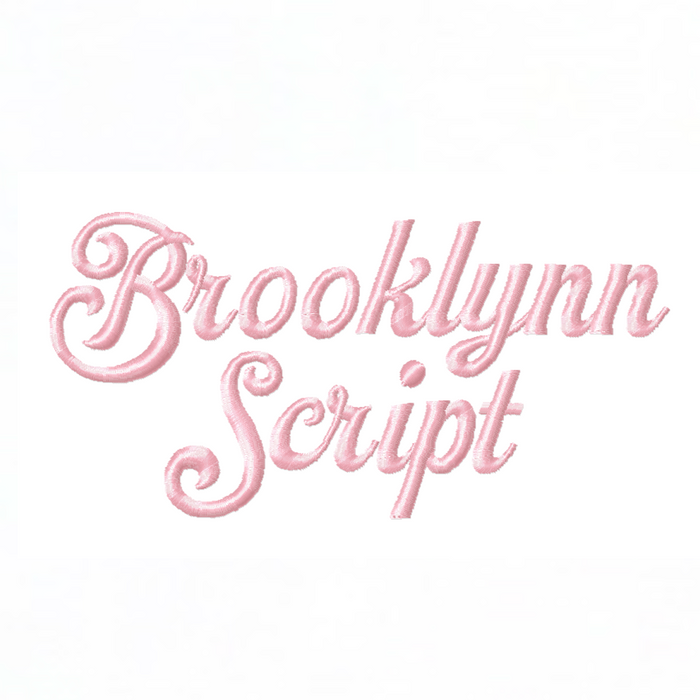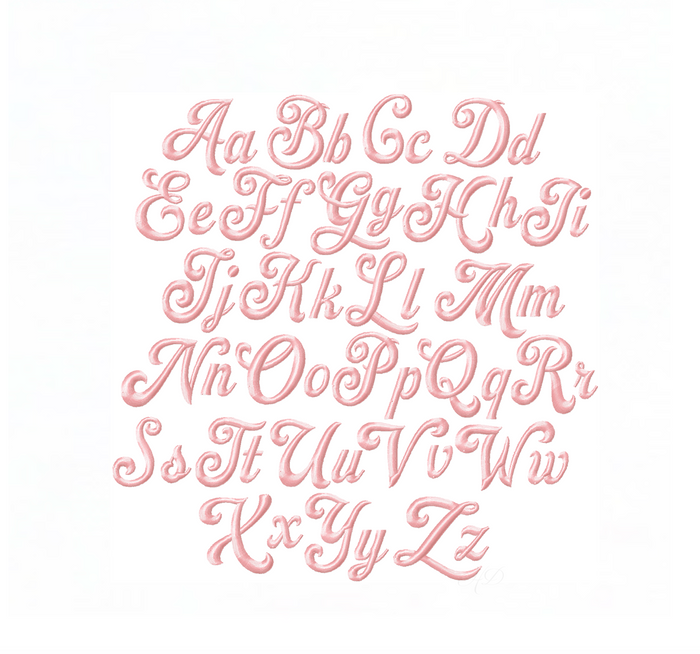
Brooklynn Script Satin Embroidery Font Package
Transform your embroidery projects with the Brooklynn Script Satin Embroidery Font Package. This versatile package includes four sizes of our elegant satin stitch script font, featuring both uppercase and lowercase letters A-Z, designed for a timeless yet contemporary aesthetic.